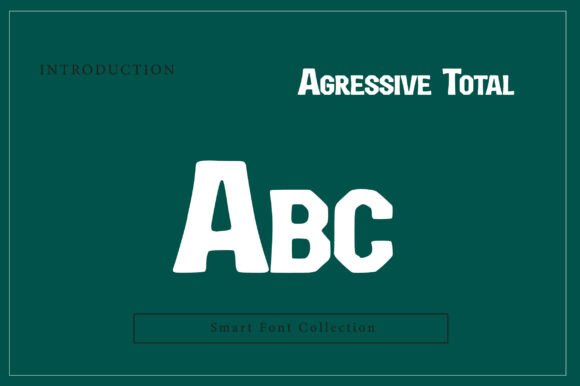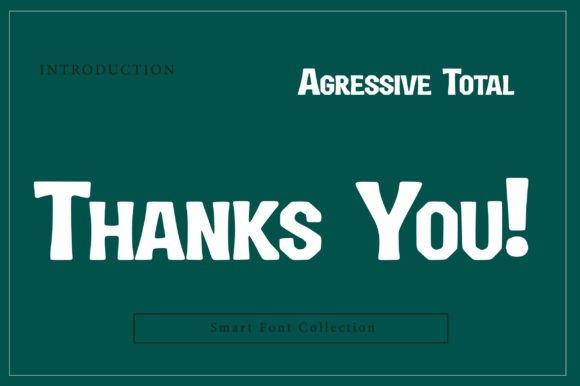
Agressive Total Font: Unleash the Power of Bold Typography
In the world of typography, few fonts can match the raw energy and intensity of Agressive Total. This bold, heavy, and expressive display typeface is designed to make a statement, with a rough, handcrafted style that delivers a strong visual impact. If you’re looking for a font that can add a touch of edginess to your designs, Agressive Total is the perfect choice.
The Aggressive Character of Agressive Total
Agressive Total’s aggressive character is what sets it apart from other fonts. Its thick strokes, uneven shapes, and rough texture give it a unique, handcrafted feel that’s perfect for designs that demand attention and energy. This font is not for the faint of heart; it’s for those who want to make a bold statement and leave a lasting impression.
Perfect for Eye-Catching Designs
Agressive Total is designed to grab attention, making it perfect for eye-catching designs that need to stand out from the crowd. Its bold, heavy strokes and rough texture ensure that your message will be loud and clear, whether you’re designing a poster, logo, or album cover. This font is not just a typography; it’s a statement piece that can elevate your design to the next level.
Ideal for Streetwear Designs, Gaming Titles, and Sports Branding
Agressive Total’s style is particularly well-suited for streetwear designs, gaming titles, and sports branding, where strength, intensity, and dominance are essential. The font’s aggressive character and raw energy make it a natural fit for these industries, where boldness and confidence are key. Whether you’re designing a logo for a streetwear brand, a title for a game, or a campaign for a sports team, Agressive Total is the perfect choice.
More Than Just a Font: A Tool for Creative Expression
Agressive Total is more than just a font; it’s a tool for creative expression. Its unique character and rough texture give designers the freedom to experiment with different styles and effects, making it perfect for a wide range of applications, from posters and logos to album covers and comics. With Agressive Total, you can add a touch of edginess to your designs and create something truly unique.
Key Features of Agressive Total
• Bold, heavy, and expressive display typeface: Agressive Total is designed to make a statement, with thick strokes and a rough, handcrafted style.
• Aggressive character: This font’s aggressive character makes it perfect for designs that demand attention and energy.
• Rough, handcrafted texture: Agressive Total’s rough texture gives it a unique, handcrafted feel that’s perfect for edgy designs.
• Perfect for eye-catching designs: This font is designed to grab attention, making it perfect for posters, logos, album covers, and more.
• Ideal for streetwear designs, gaming titles, and sports branding: Agressive Total’s style is particularly well-suited for these industries, where strength, intensity, and dominance are essential.
In conclusion, Agressive Total is a powerful and expressive display typeface that’s perfect for designers who want to add a touch of edginess to their designs. Its bold, heavy strokes and rough texture make it a natural fit for streetwear designs, gaming titles, sports branding, and more. Whether you’re a designer, craftsperson, or simply someone who appreciates bold typography, Agressive Total is a font that’s sure to make a statement.